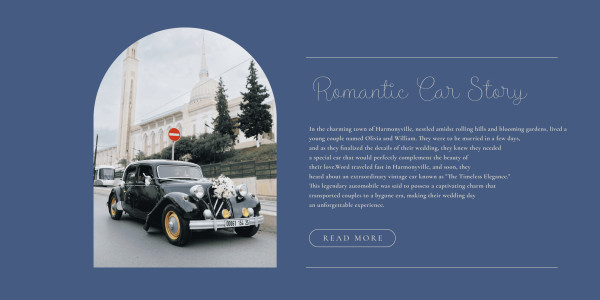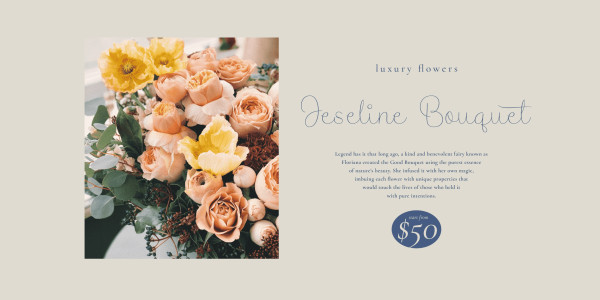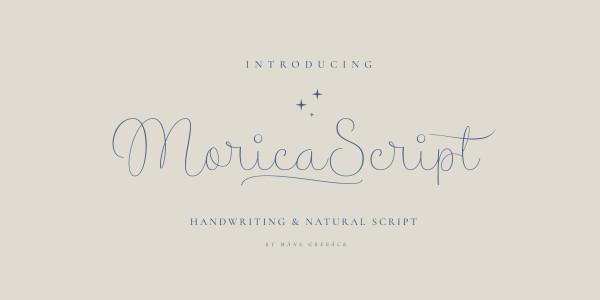
Morica Script Font
Morica Script Font, designed by Mans Greback, is a delicate and romantic handwritten typeface with a fine touch.
Its thin lines and whimsical style bring a sense of elegance and charm to your creative projects.
Use underscore _ to make an swash anywhere in a word.
Example: Lov_ing
Use multiple underscores to make longer swashes.
Example: Mag___ical